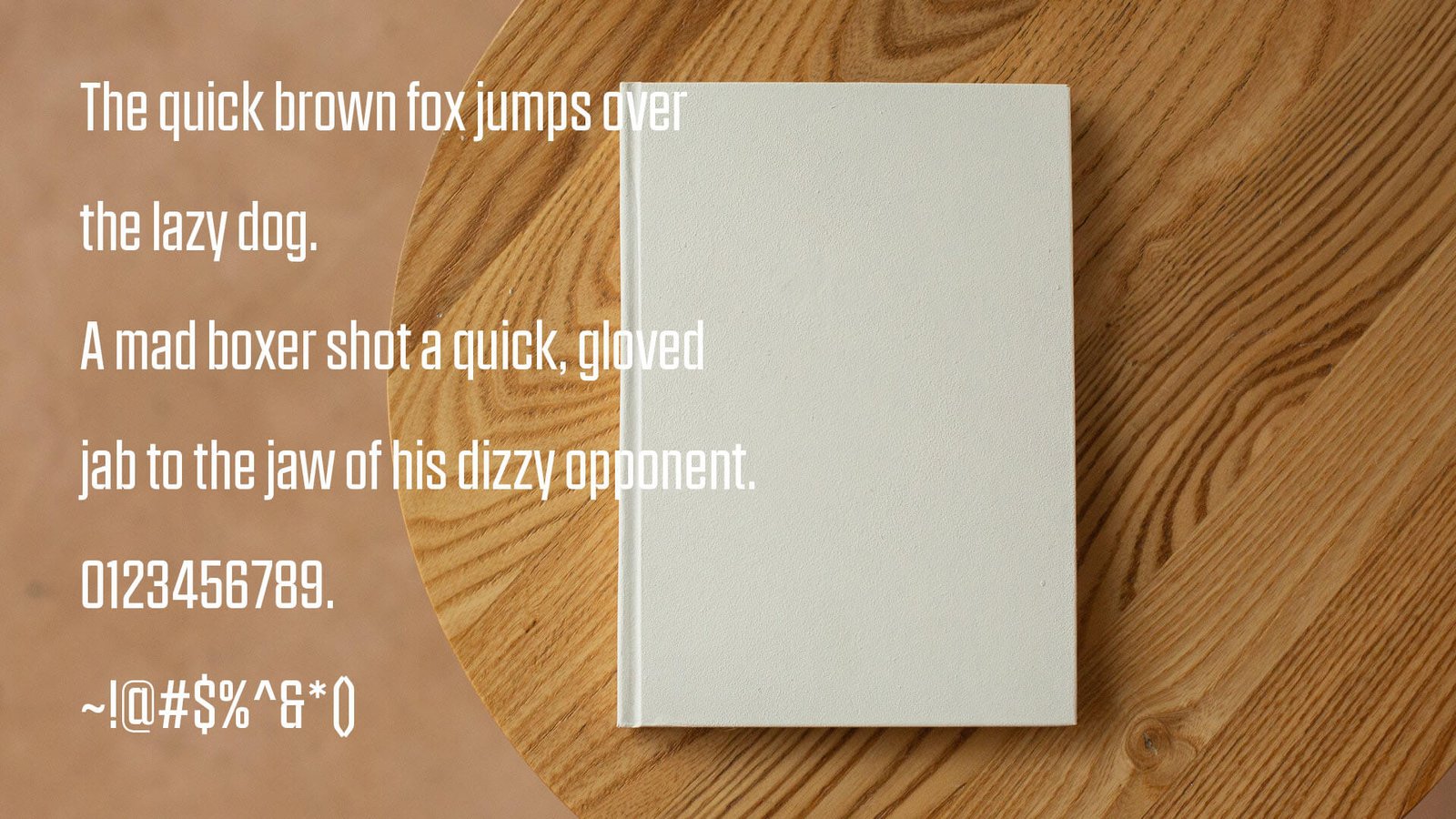
Grand Font is from the sans serif typeface family. Its designer and publisher is North Type. This font has 6 weights and 12 styles. It is a condensed font with bulky curves. This font has letters that are designed carefully and have a well-disciplined design pattern.
Grand font contains characters and glyphs that are very clear and legible. It contains characters that include uppercase letters, lowercase letters, numbers, symbols, and special characters. It provides support for more than 200 languages.
| Name | Grand Font |
| Designer | North Type |